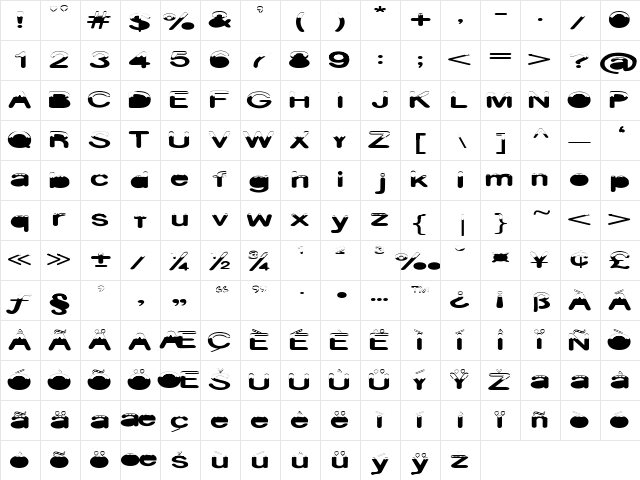
Rita_Bold Normal
Rita_Bold Family
Complete Rita_Bold Normal glyph index. Displaying only characters natively supported by Rita_Bold Normal font.
Design Context for Rita_Bold
Rita_Bold is a composed and adaptable typeface that performs quietly and consistently across a wide range of design contexts. Its bold stroke weight gives it real presence on the page.